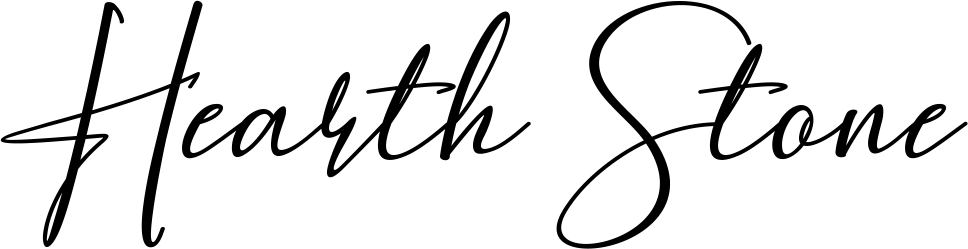
Hearth Stone Font
Today we are pleased to offer you a thin organic script font. Hearth Stone is a calligraphy font that seems to be created with artistic hand drawing to bring a creative and friendly atmosphere for all readers.
You can use this lipstick font in any quotes, greeting cards, posters, flyers, titles, etc. This font, with all its beauty and naturalness, is difficult to read. Get it right now and enjoy!